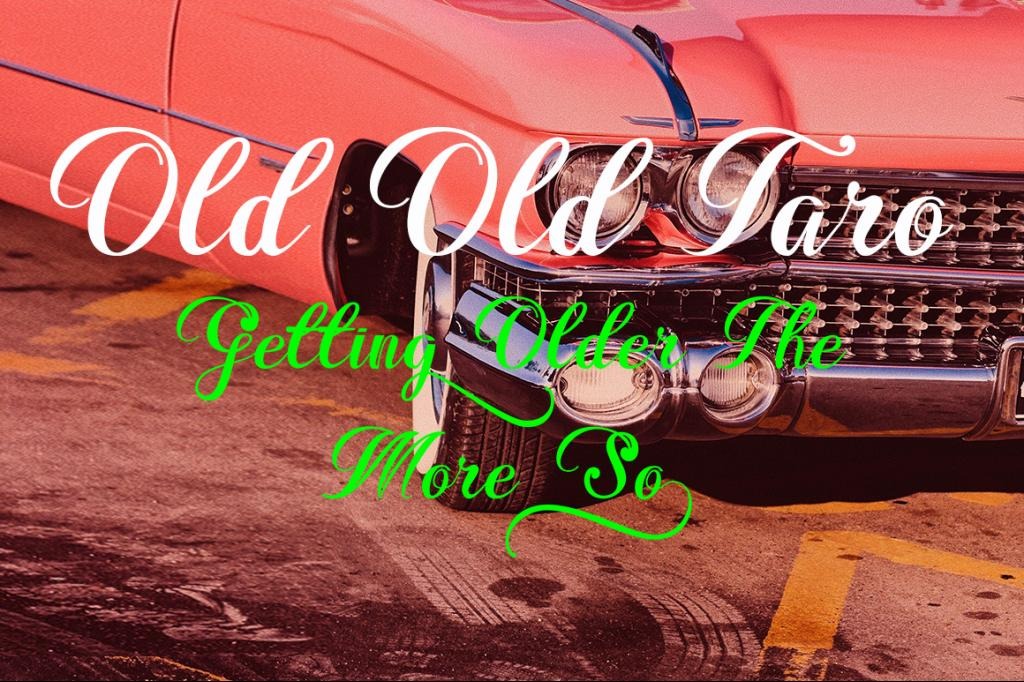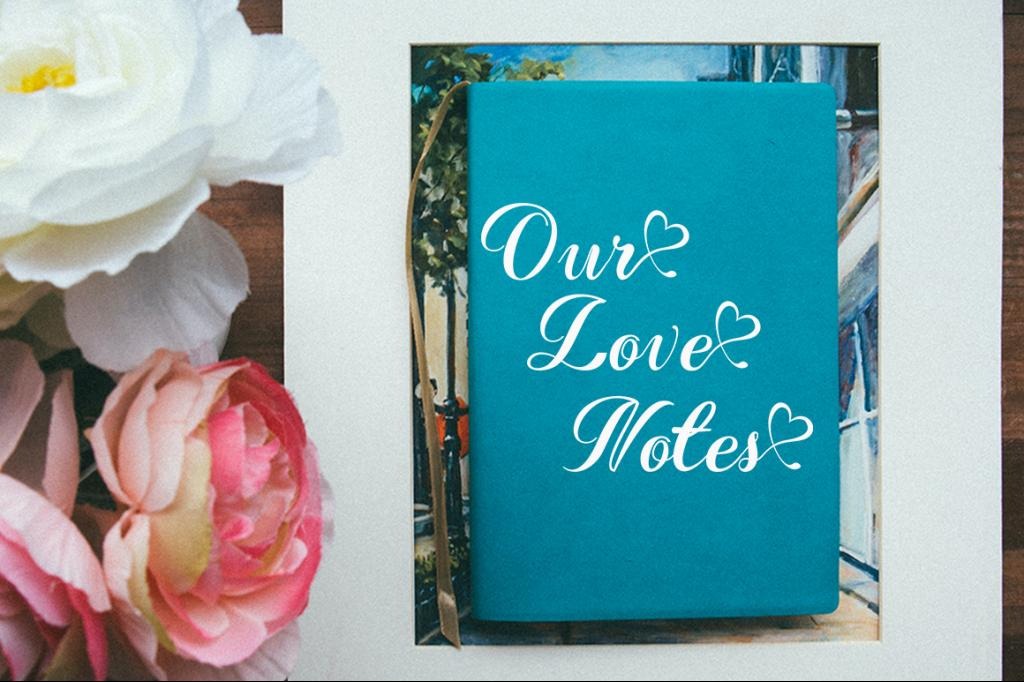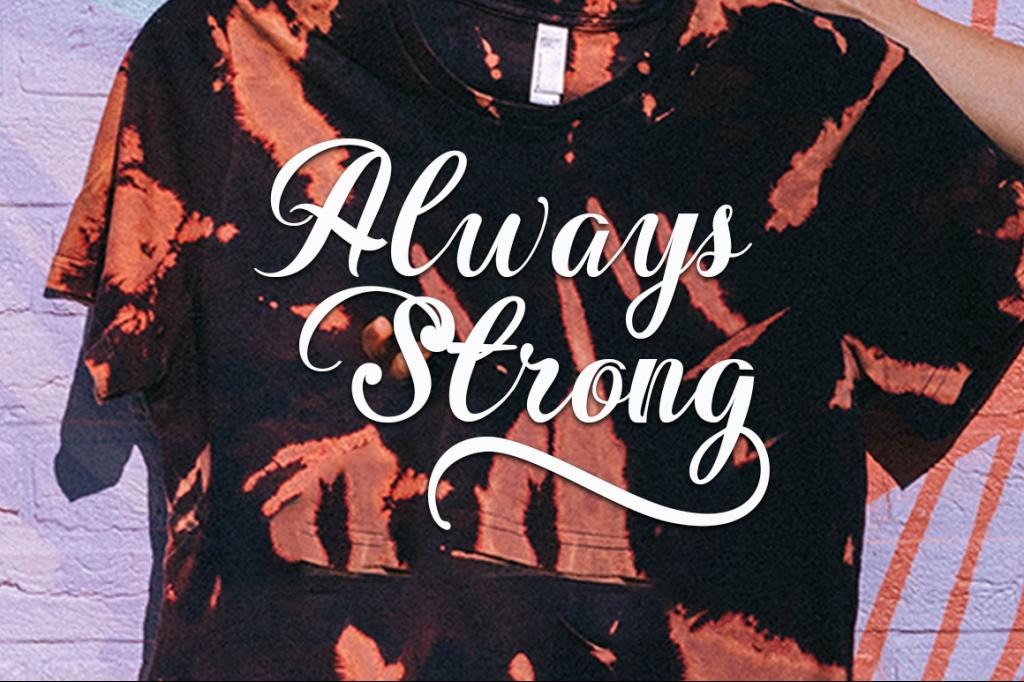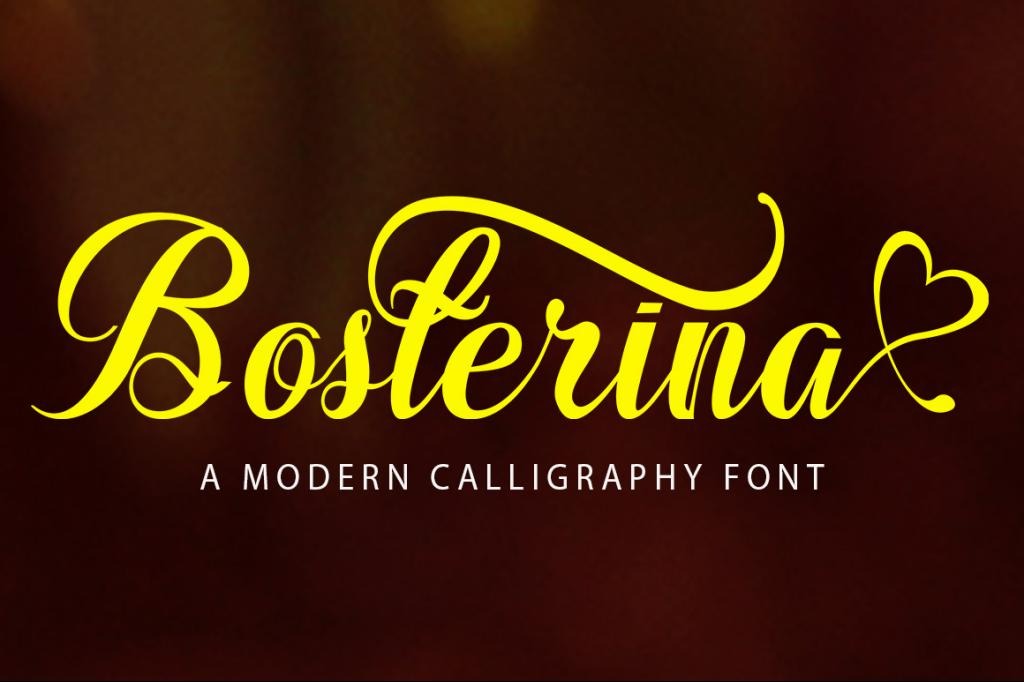
Bosterina Font
Bosterina Calligraphy Font is the latest style with modern beautiful calligraphy type. The modern style is very suitable to be applied in various formal forms such as invitations, labels, restaurant menus, logos, fashion, make up, stationery, novels, magazines, books, greeting/wedding cards, packaging, labels or all kinds of advertisements. This font is PUA encoded which means you can access all of the glyphs and swashes with ease!